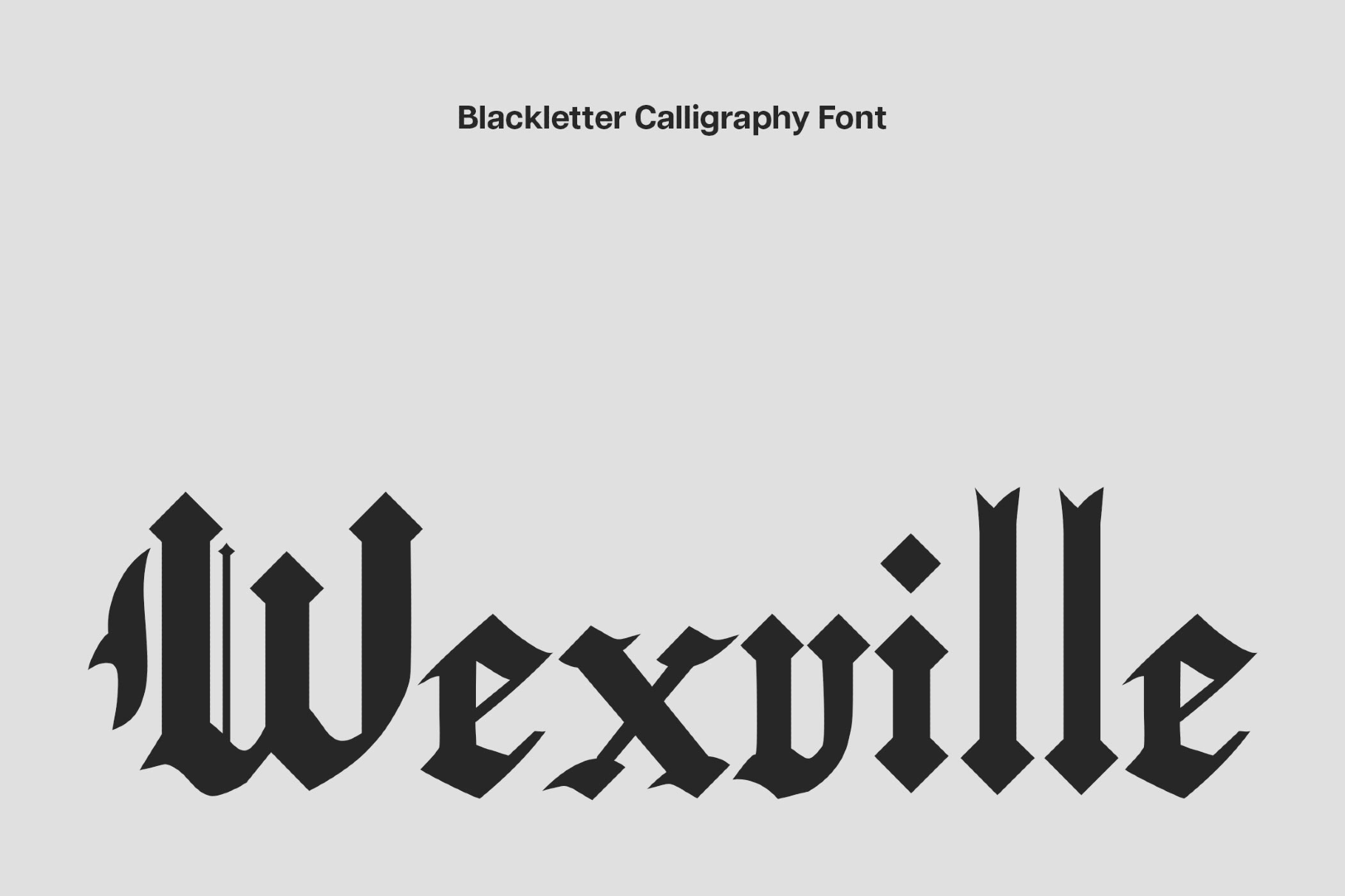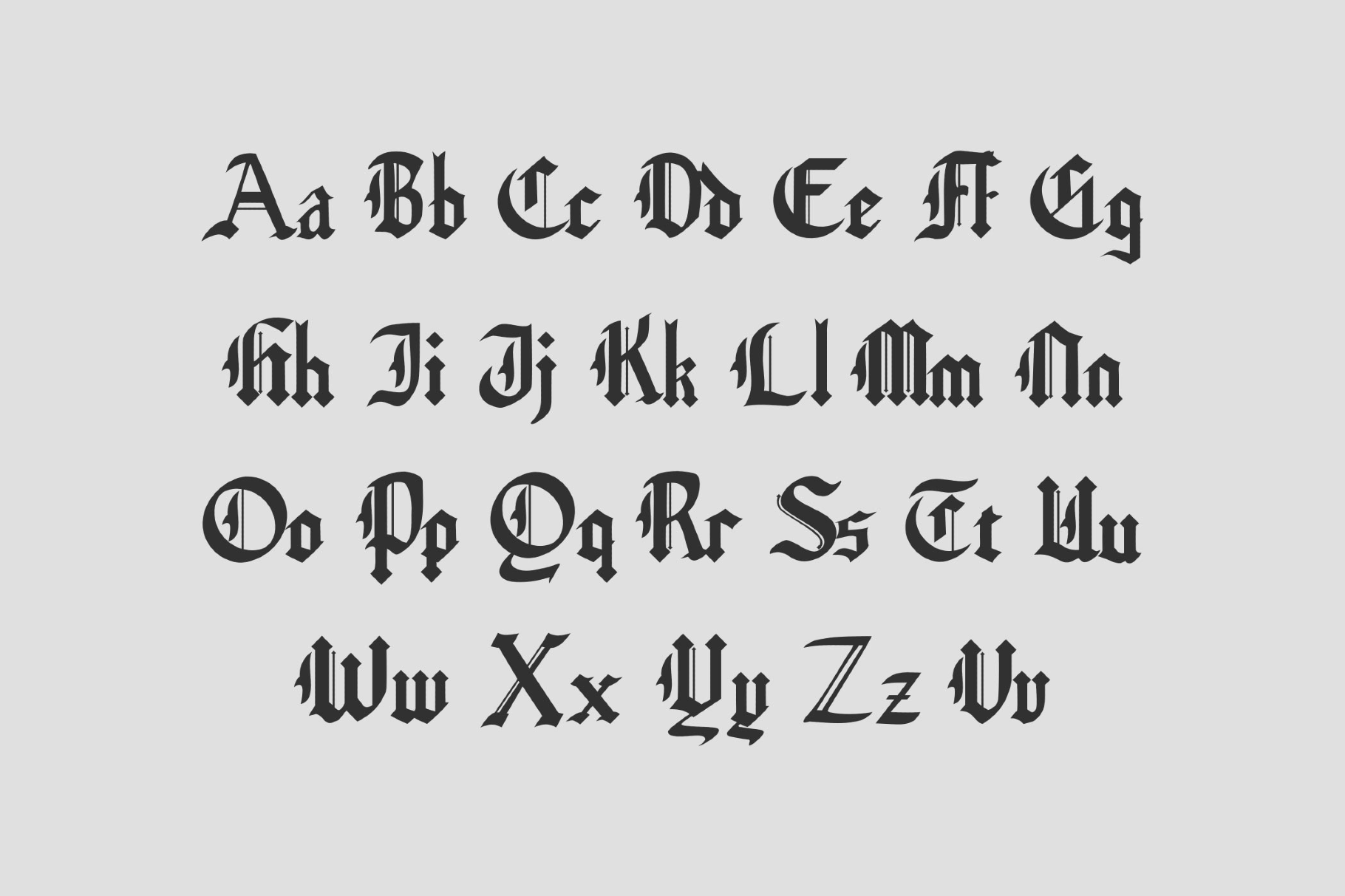
Wexville Blackletter Font
Wexville
The Wexville blackletter typeface carries a sturdy textura skeleton with diamond tips and a compact rhythm. The characters display angular strokes, tall ascenders, and clipped joins, which religiously follow the gothic typographic tradition.
Use it for newspaper nameplates, festival posters, extreme-sports branding, craft-beer labels, tattoo flash headlines, occult or horror film titles, RPG covers and UI menus, gothic fashion tags, heritage certificates, esports team wordmarks, and museum exhibition graphics.